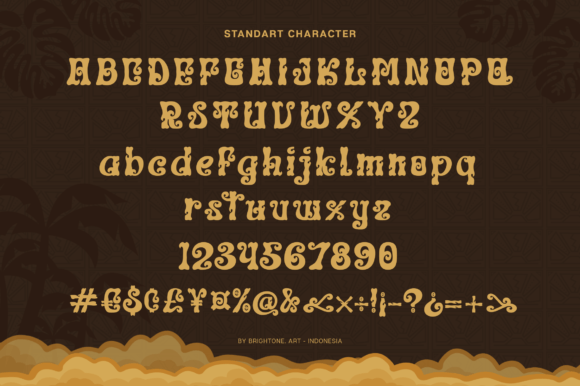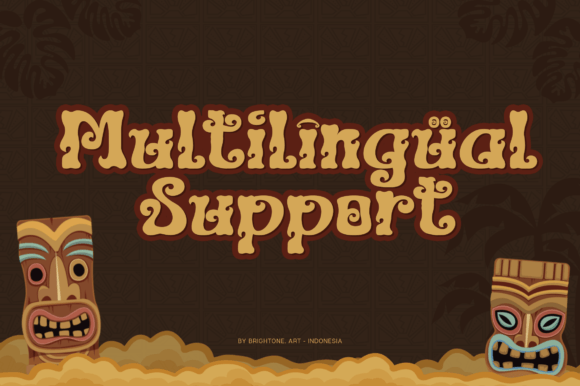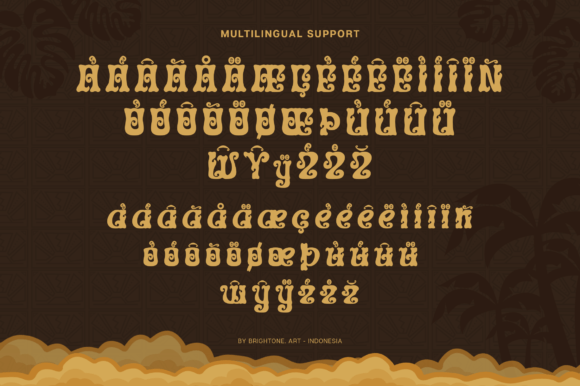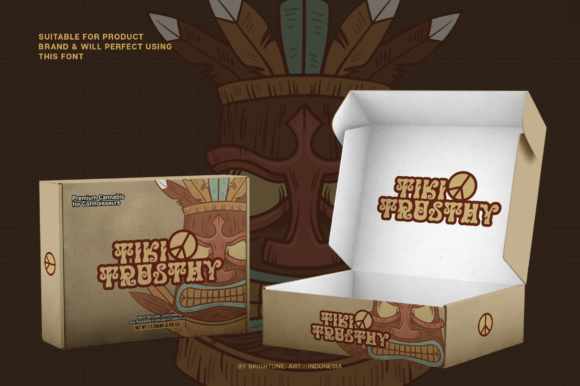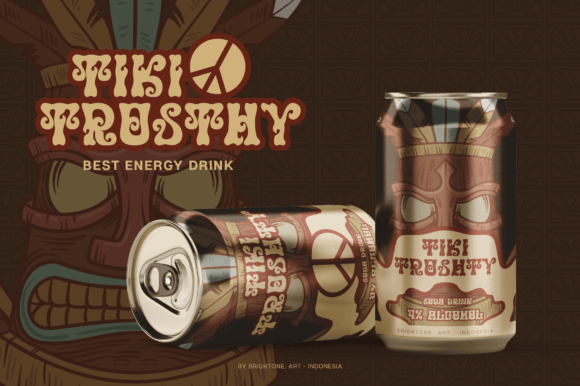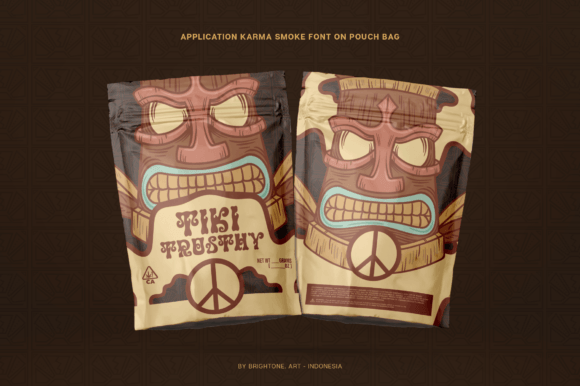
Introduction to Karma Smoke Font
Have you ever stared at a blank canvas, waiting for inspiration to strike? That’s exactly where I was when I stumbled upon the mesmerizing Karma Smoke Font. Its psychedelic patterns and intricate details transported me to a world of creativity and possibility. As a designer, there’s no shortage of fonts to choose from, but this one stood out from the crowd with its unique touch and high-quality design.
What makes Karma Smoke Font so valuable to designers is its versatility and ease of use. With its PUA encoding, you can access all the glyphs and swashes with ease, making it a valuable resource for any creative project. Whether you’re working on a logo, label, or packaging design, this font is sure to add a touch of magic to your work.
Key Features of Karma Smoke Font
- High-quality design resource ideal for creative projects, offering a unique and stylish look.
- Features a unique, hand-drawn design with a subtle, smoky effect, adding an extra layer of depth to creative projects.
Honest Review: Karma Smoke Font
I recently stumbled upon the Karma Smoke Font and was excited to dive in and see what it has to offer. As a designer, I’m always on the lookout for high-quality design resources to elevate my creative projects.
One of the things that works well with this font is its unique, hand-drawn aesthetic. The subtle texture and imperfections give it a charming, organic feel that’s perfect for adding some personality to your designs.
Here are some of the key features I like about the Karma Smoke Font:
⚠️ The font may not be suitable for corporate or formal projects, as its hand-drawn aesthetic may be too casual for some brands.
⚠️ Some users may find the font’s texture and imperfections distracting, especially in small text sizes.
Overall, I’d say the Karma Smoke Font is a solid addition to any designer’s toolkit. While it may have some limitations, its unique aesthetic and high-quality files make it a great choice for creative projects that need a bit of personality.
Tips for Getting the Most Out of the Karma Smoke Font
For the best results, use the Karma Smoke Font on a transparent background to create a seamless and professional design. Experiment with different font sizes, colors, and styles to find the perfect combination for your creative project.
Common Use Cases for the Karma Smoke Font
The Karma Smoke Font is perfect for a variety of creative projects, including logos, brochures, business cards, and social media graphics. Its unique design and high-quality rendering make it an ideal choice for any project that requires a professional and eye-catching look.
Can I use the Karma Smoke Font on a transparent background?
Yes, the Karma Smoke Font is designed to work well on a transparent background. The font’s design features a subtle gradient effect that will work seamlessly with a transparent background, making it perfect for use in creative projects that require a high level of design sophistication.